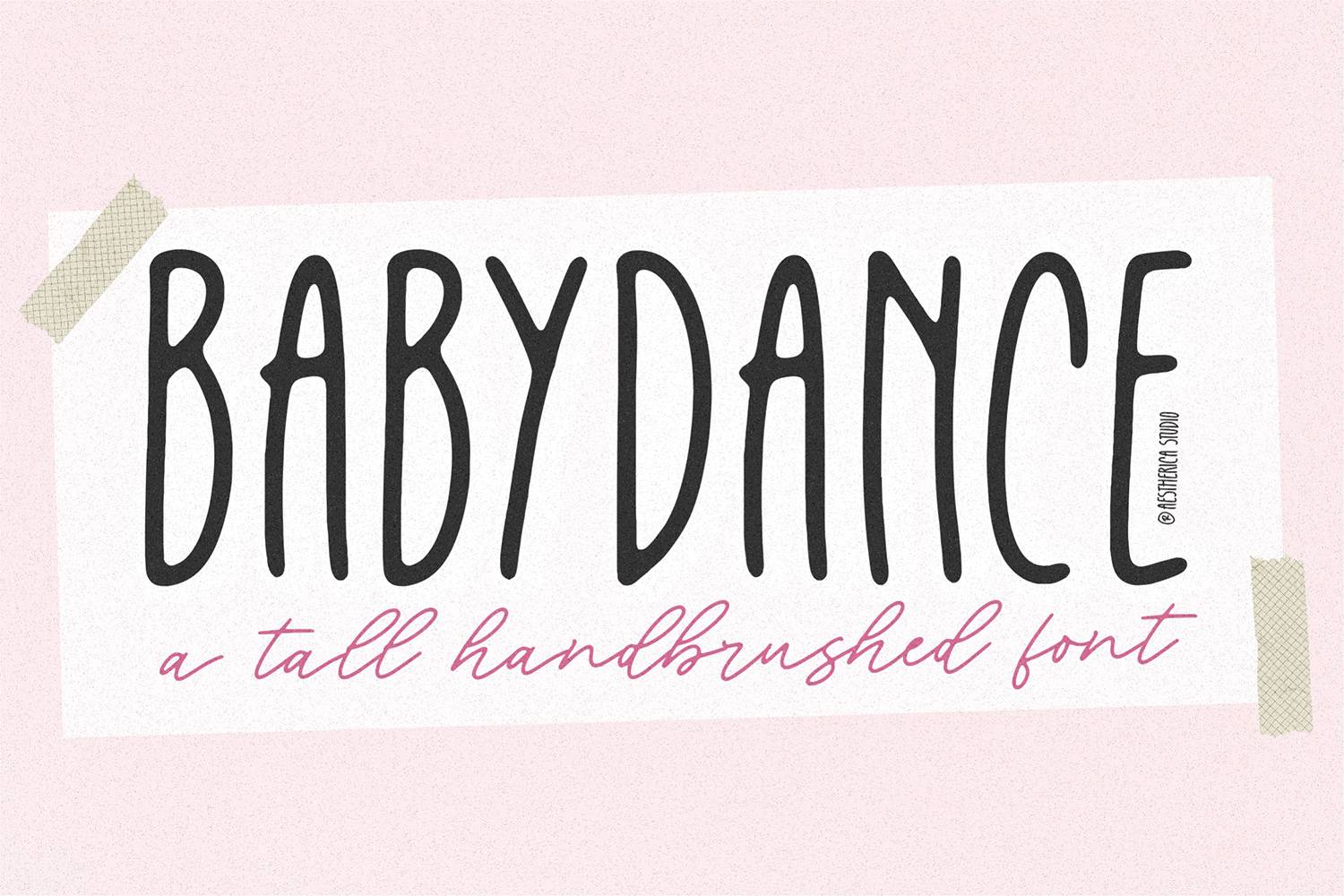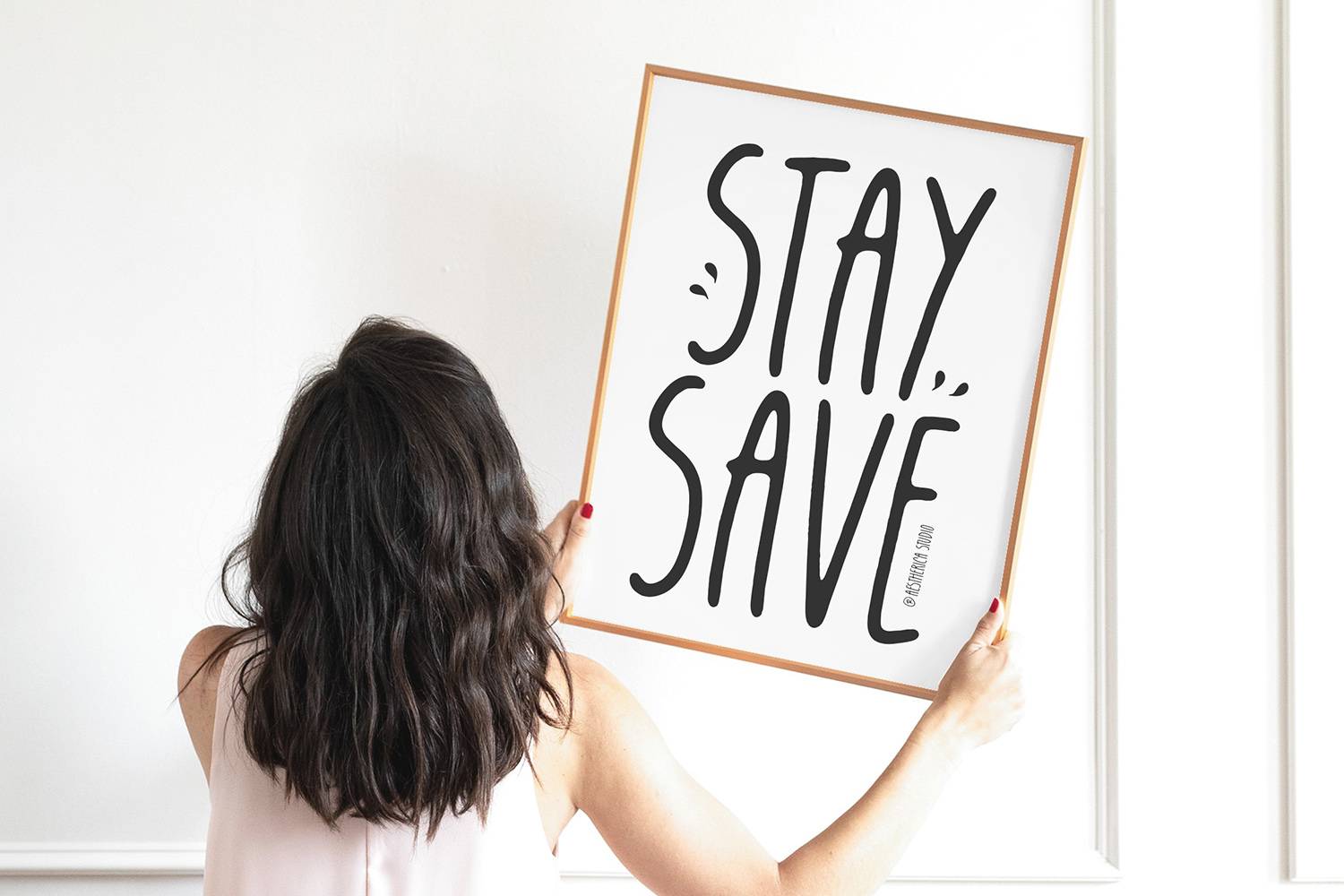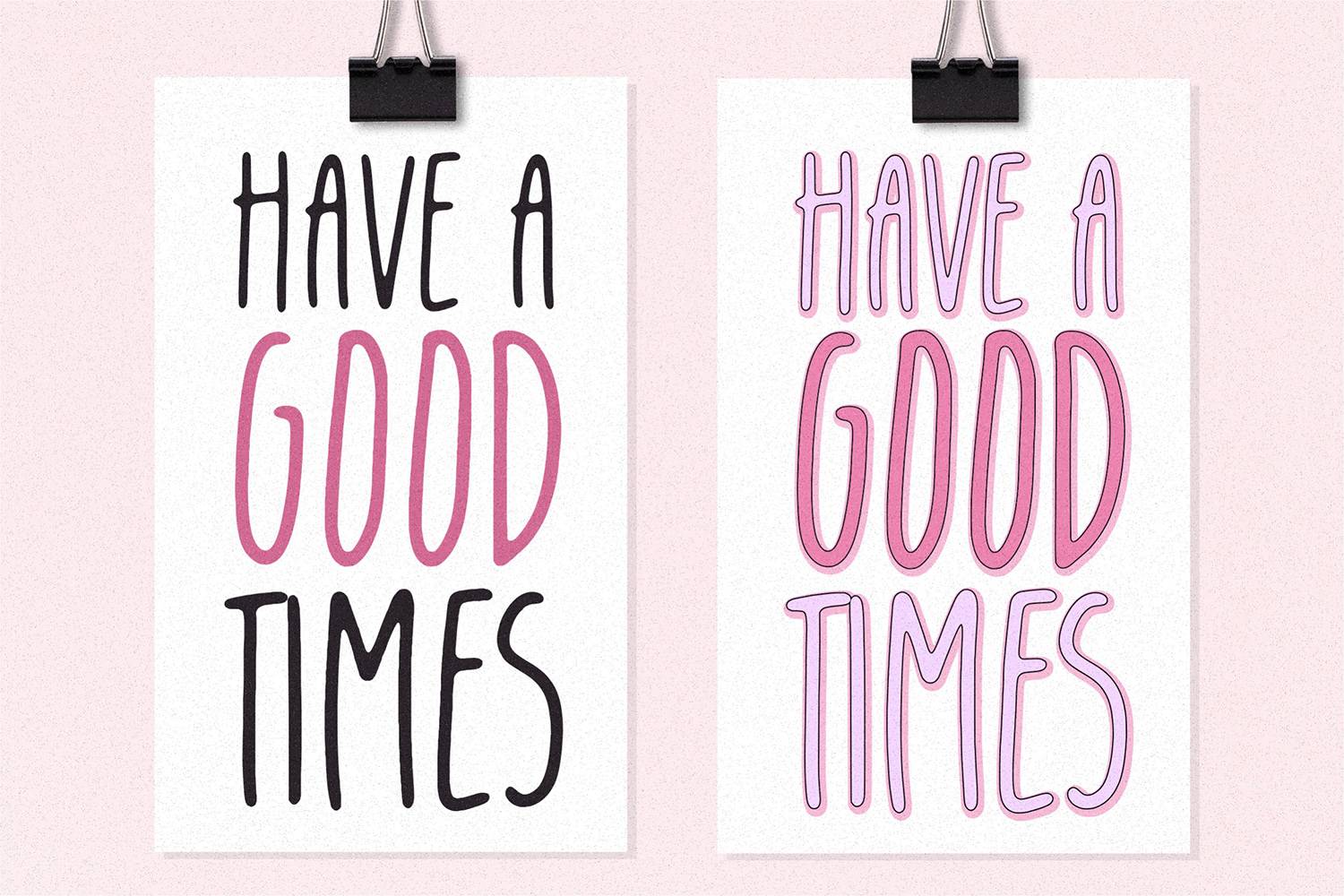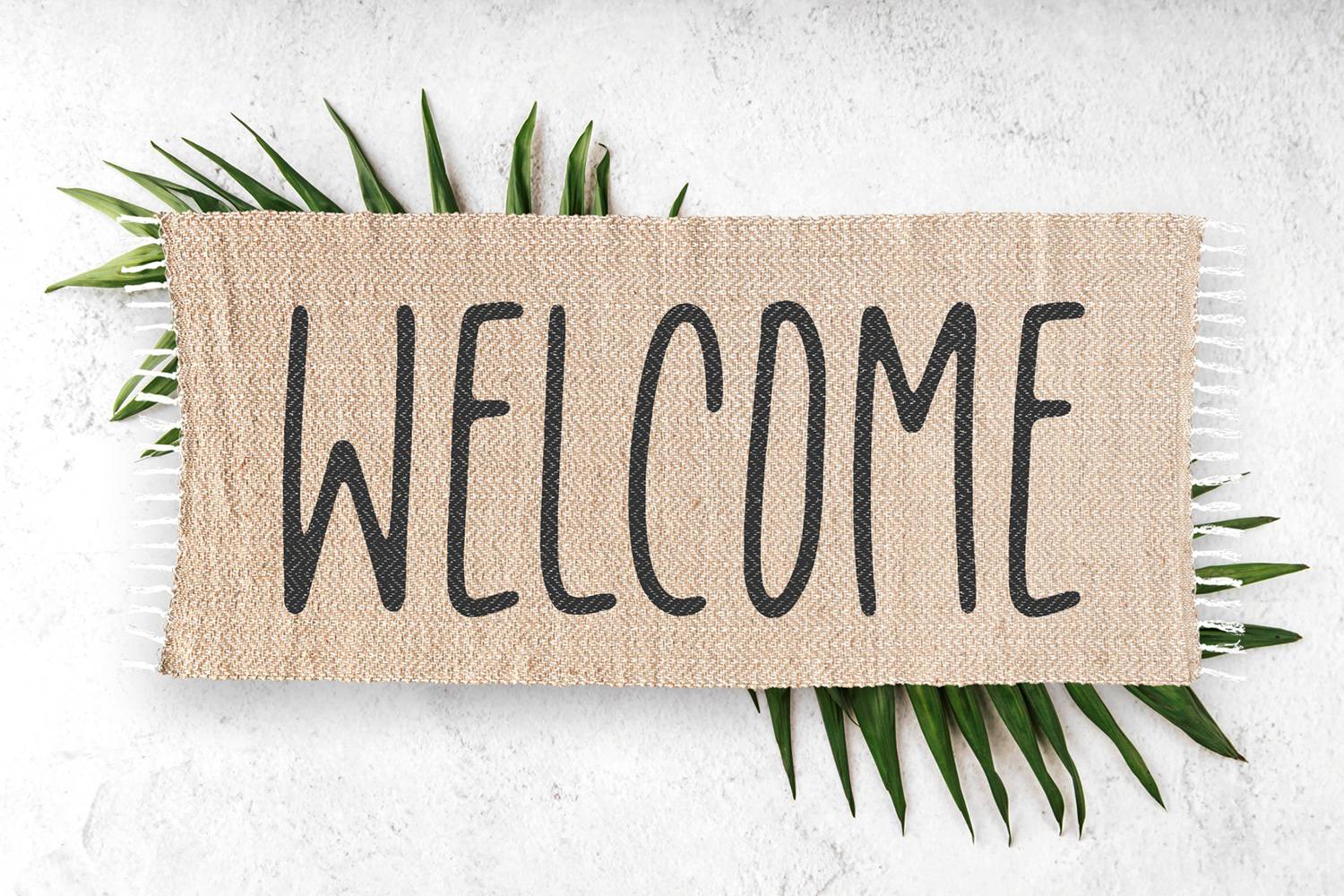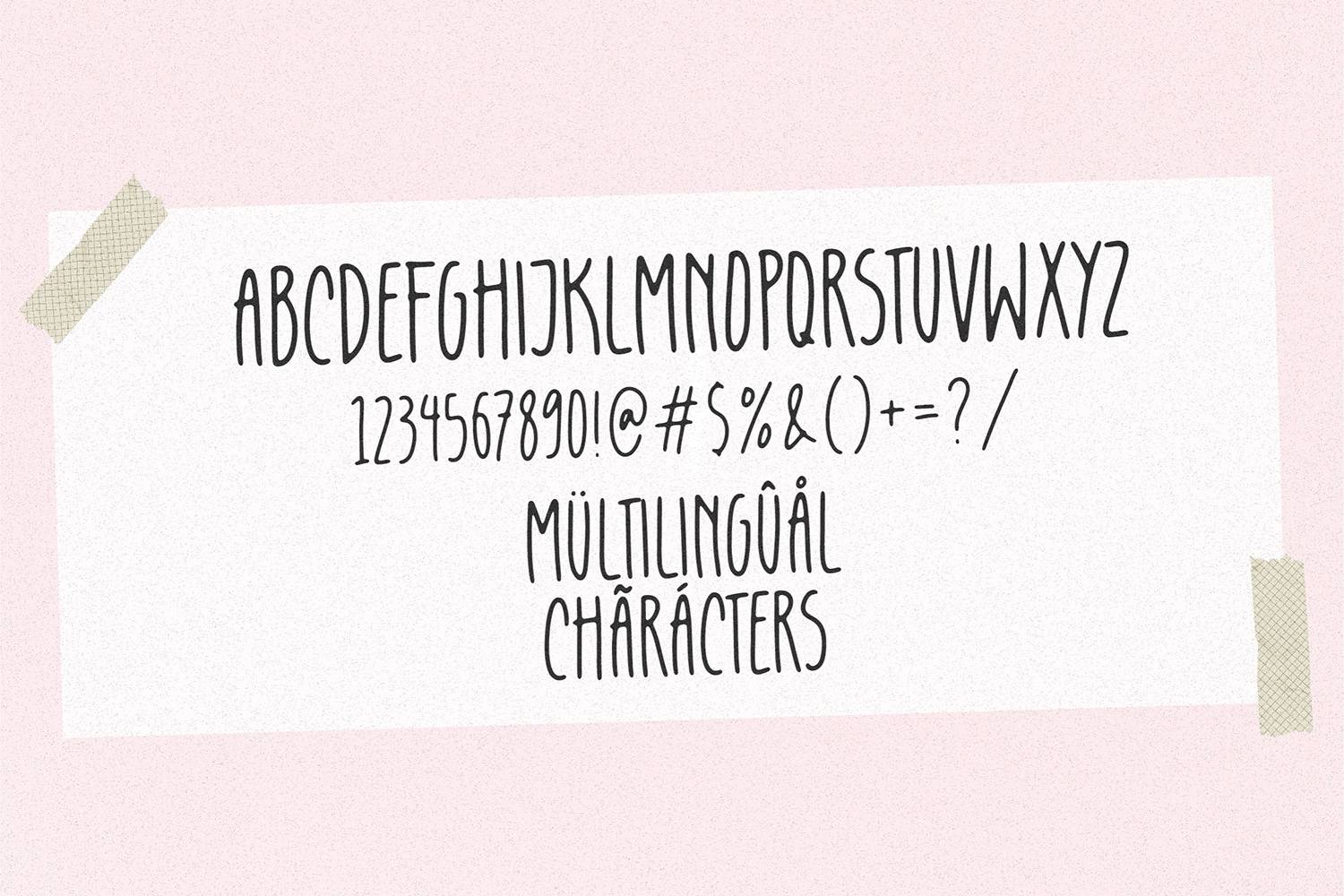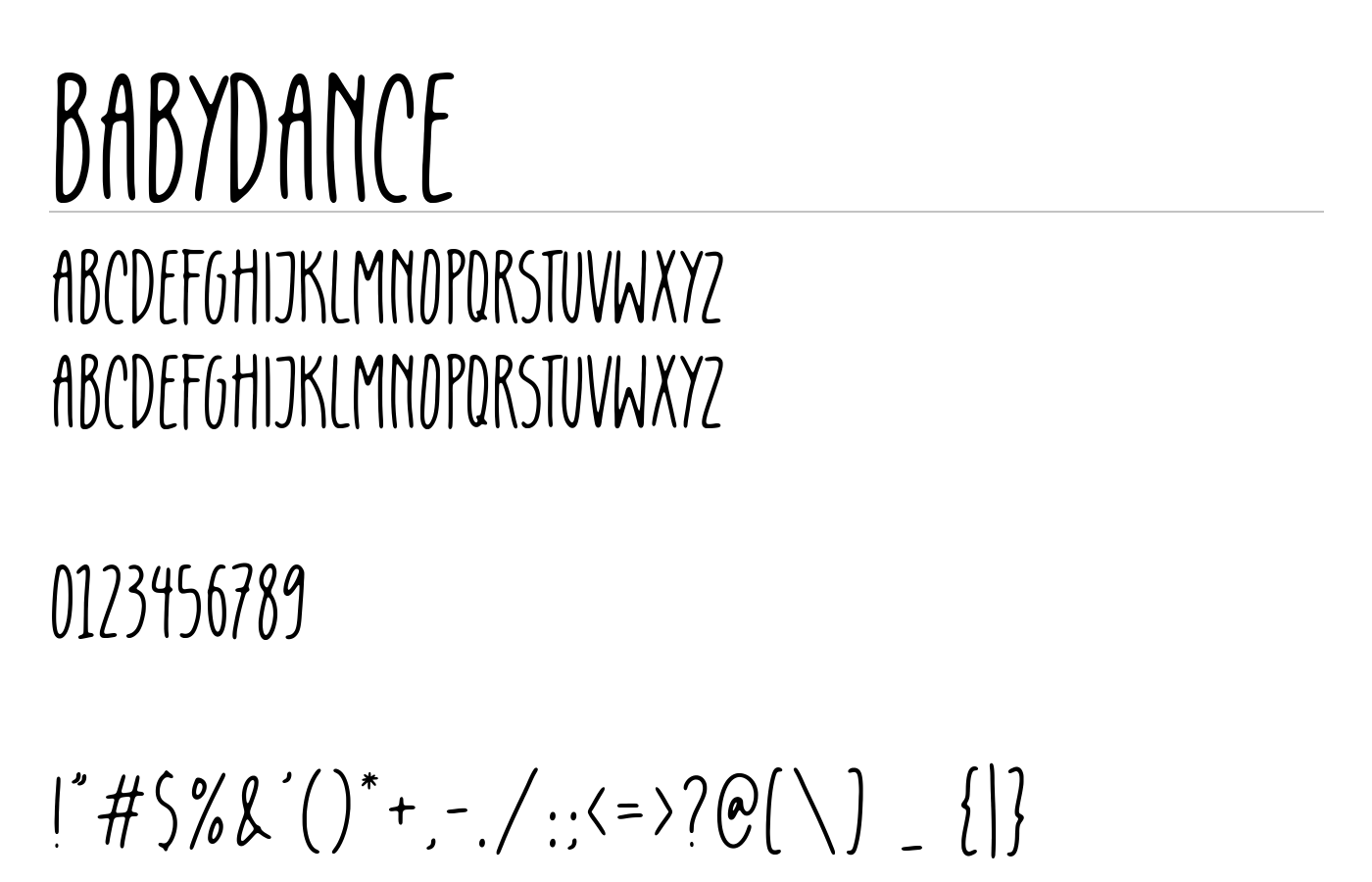
Babydance is a playful and whimsical sans serif font with tall, narrow letterforms that give it a light and airy feel. Its hand-drawn style and slightly irregular strokes add a friendly and casual personality, making it ideal for creative designs, children's projects, and informal branding. This font works well in headlines, logos, and packaging that aim to convey fun and approachability.
Babydance Font
About Babydance Font